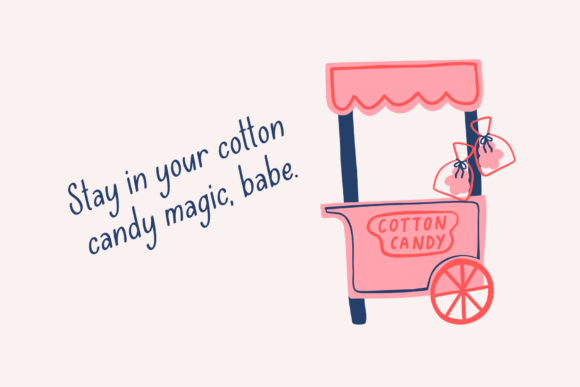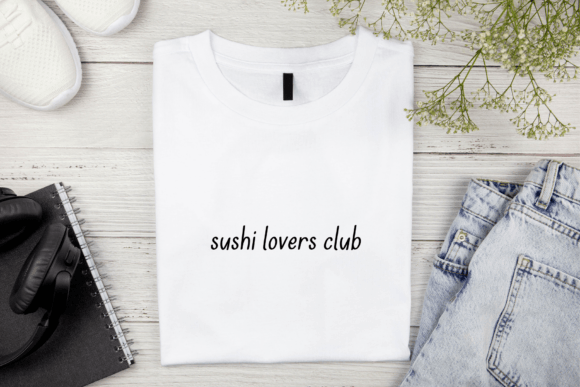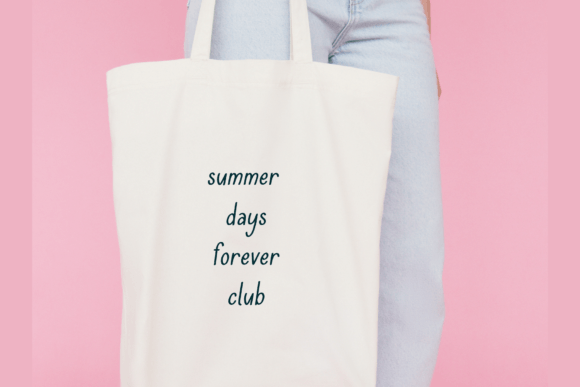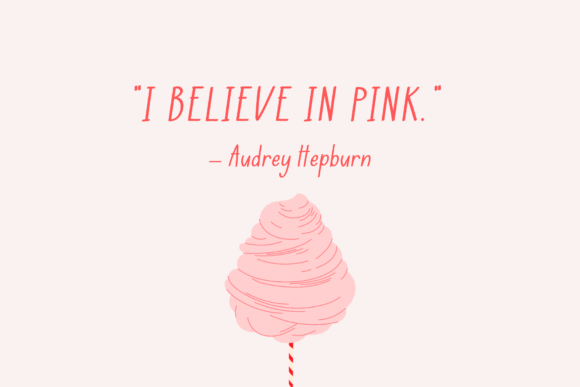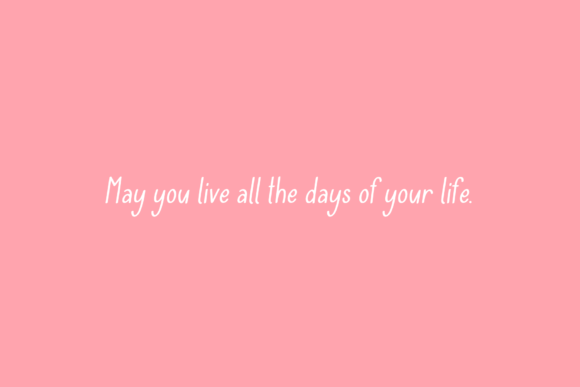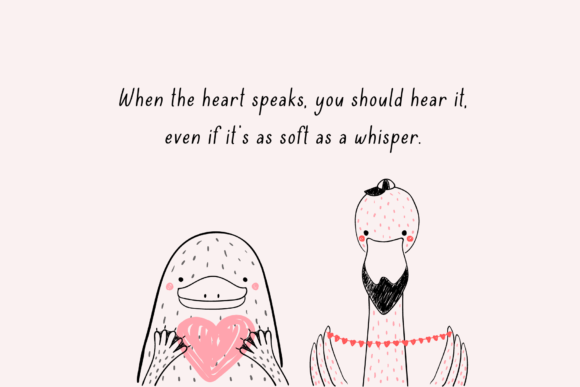
Cotton Candy Font: The Sweetest Addition to Your Design Collection
Are you tired of using the same old fonts in your designs? Look no further than the Cotton Candy font, a clean, relaxed, and friendly handwritten font that’s perfect for a wide variety of projects. With its neat and simple style, this font has the potential to become your go-to font, no matter the occasion.
What Makes Cotton Candy Font So Special?
Cotton Candy font is a unique and refreshing addition to any design collection. Its clean and relaxed style makes it perfect for projects that require a friendly and approachable tone. Whether you’re designing a logo, creating a social media graphic, or crafting a website, this font is sure to impress.
One of the standout features of Cotton Candy font is its simplicity. The font’s neat and straightforward style makes it easy to read and understand, even at smaller sizes. This makes it perfect for body text, captions, and other applications where clarity is key.
Cotton Candy font is incredibly versatile, making it suitable for a wide range of designs and projects. Here are just a few examples of how you can use this amazing font:
- Logos and branding: Use Cotton Candy font to create a friendly and approachable logo that will help your brand stand out.
- Social media graphics: Add a touch of whimsy and fun to your social media graphics with this delightful font.
- Websites: Use Cotton Candy font as a body font or for headings to create a clean and modern website design.
- Crafting and DIY projects: This font is perfect for crafters and DIY enthusiasts who want to add a personal touch to their projects.
Why Designers and Crafters Love Cotton Candy Font
Designers and crafters alike are raving about Cotton Candy font, and it’s easy to see why. Here are just a few reasons why this font has become a favorite among creatives:
- Easy to read: The font’s clean and simple style makes it easy to read, even at smaller sizes.
- Versatile: Cotton Candy font can be used for a wide range of projects, from logos and branding to social media graphics and websites.
- Unique: This font has a unique and refreshing style that will help your designs stand out from the crowd.
- Fun: Let’s face it – Cotton Candy font is just plain fun! It’s perfect for projects that require a playful and whimsical touch.
How to Use Cotton Candy Font in Your Designs
Using Cotton Candy font in your designs is easy. Here are a few tips to get you started:
- Pair it with other fonts: Try pairing Cotton Candy font with other fonts to create a unique and interesting contrast.
- Experiment with colors: This font looks great in a variety of colors, so don’t be afraid to experiment and find the perfect hue for your design.
- Use it for headings and body text: Cotton Candy font is perfect for both headings and body text, making it a great all-around font for your designs.
| Font Name | Cotton Candy Font |
| Author | Cotton White Studio |
In conclusion, Cotton Candy font is a clean, relaxed, and friendly handwritten font that’s perfect for a wide variety of designs. With its neat and simple style, this font has the potential to become your go-to font, no matter the occasion. Whether you’re a designer, crafter, or DIY enthusiast, Cotton Candy font is sure to delight. So why wait? Give it a try today and see the difference it can make in your designs!